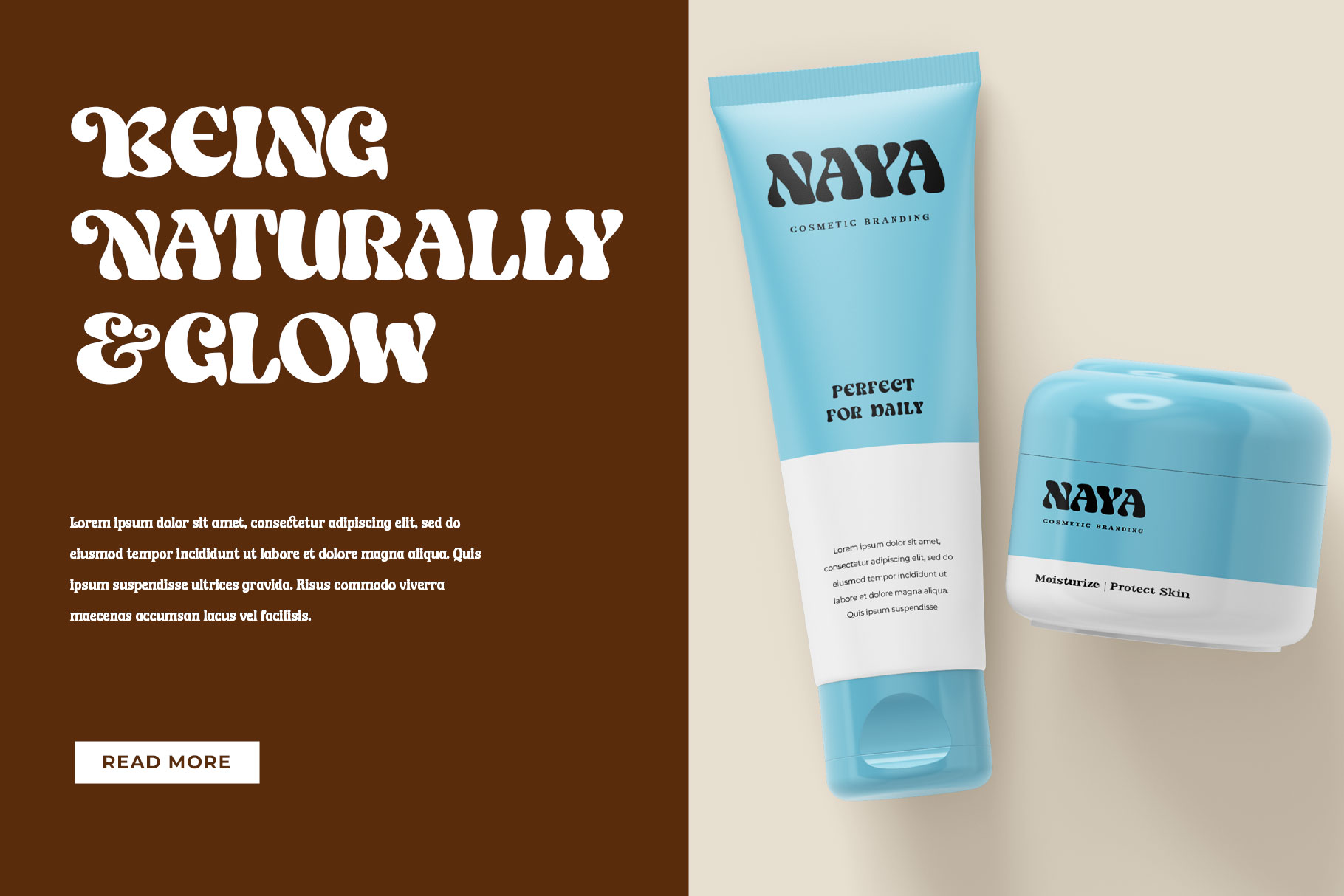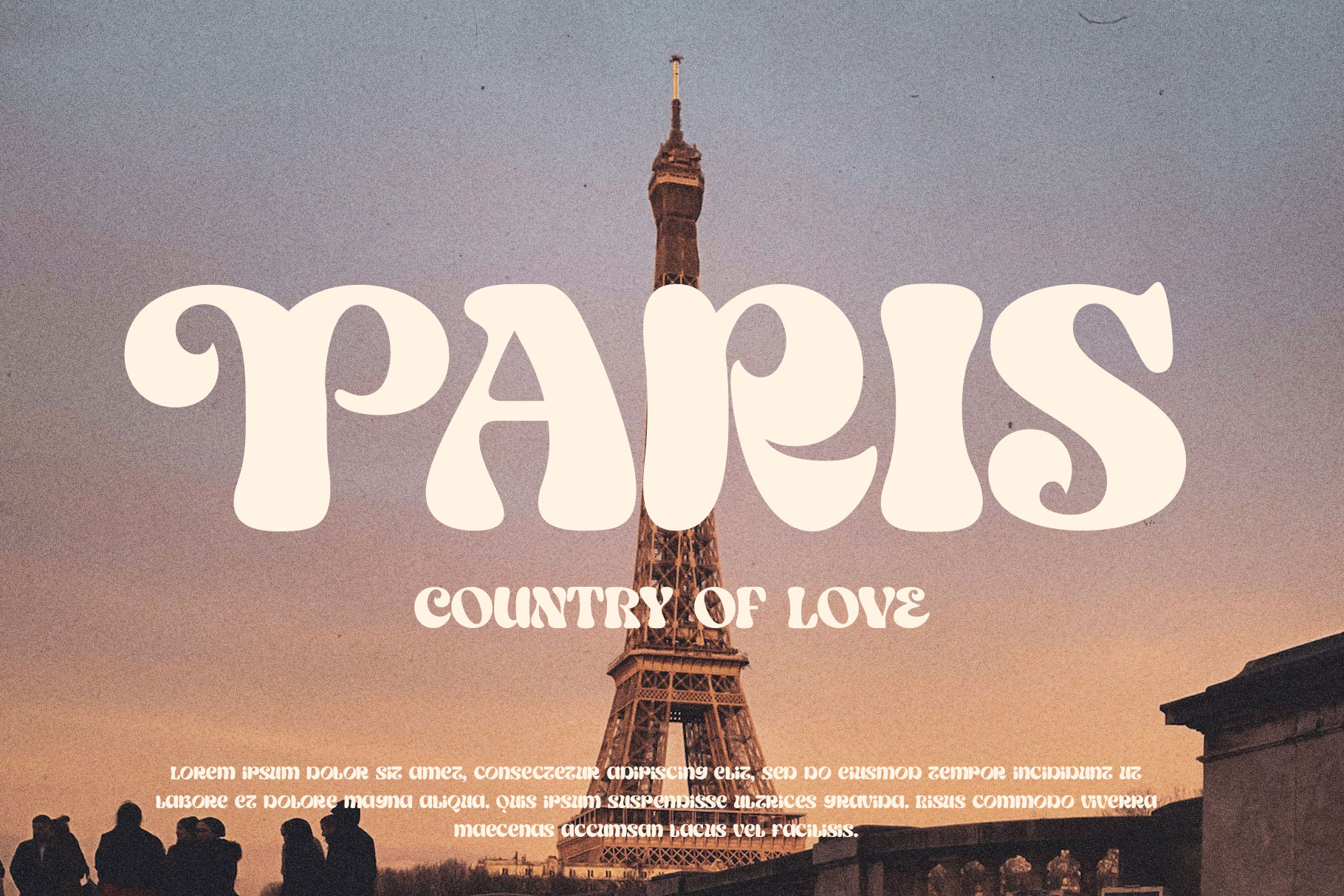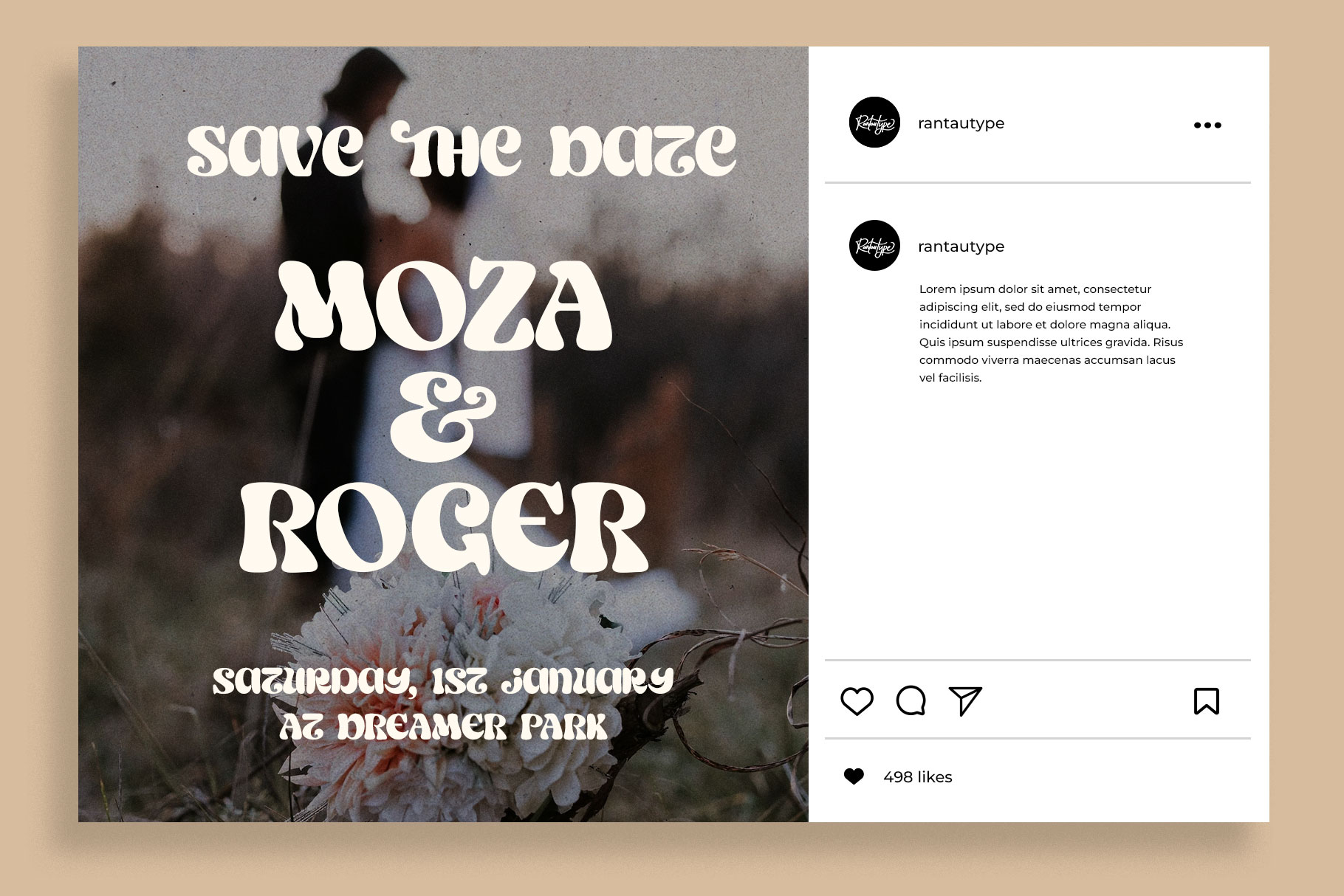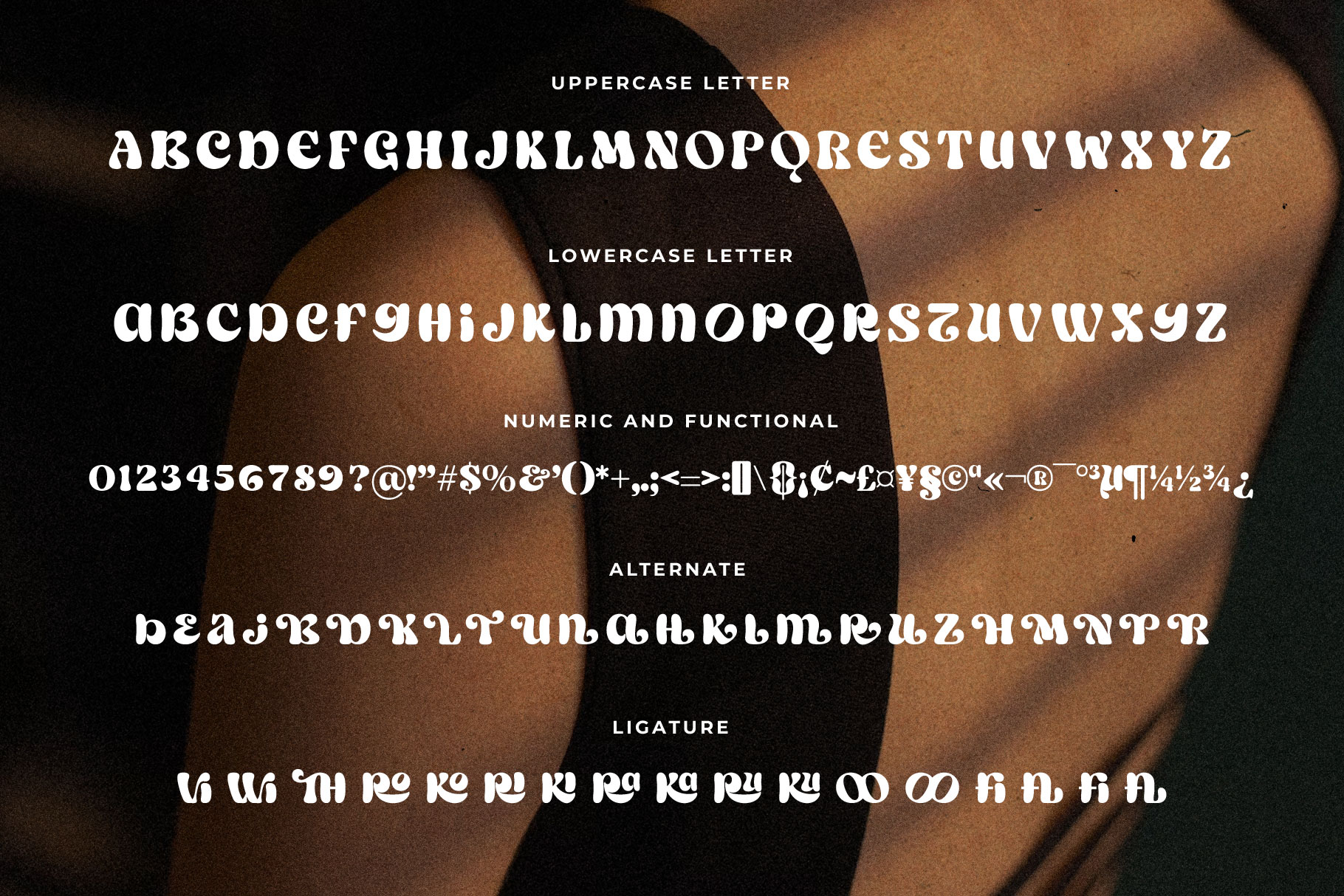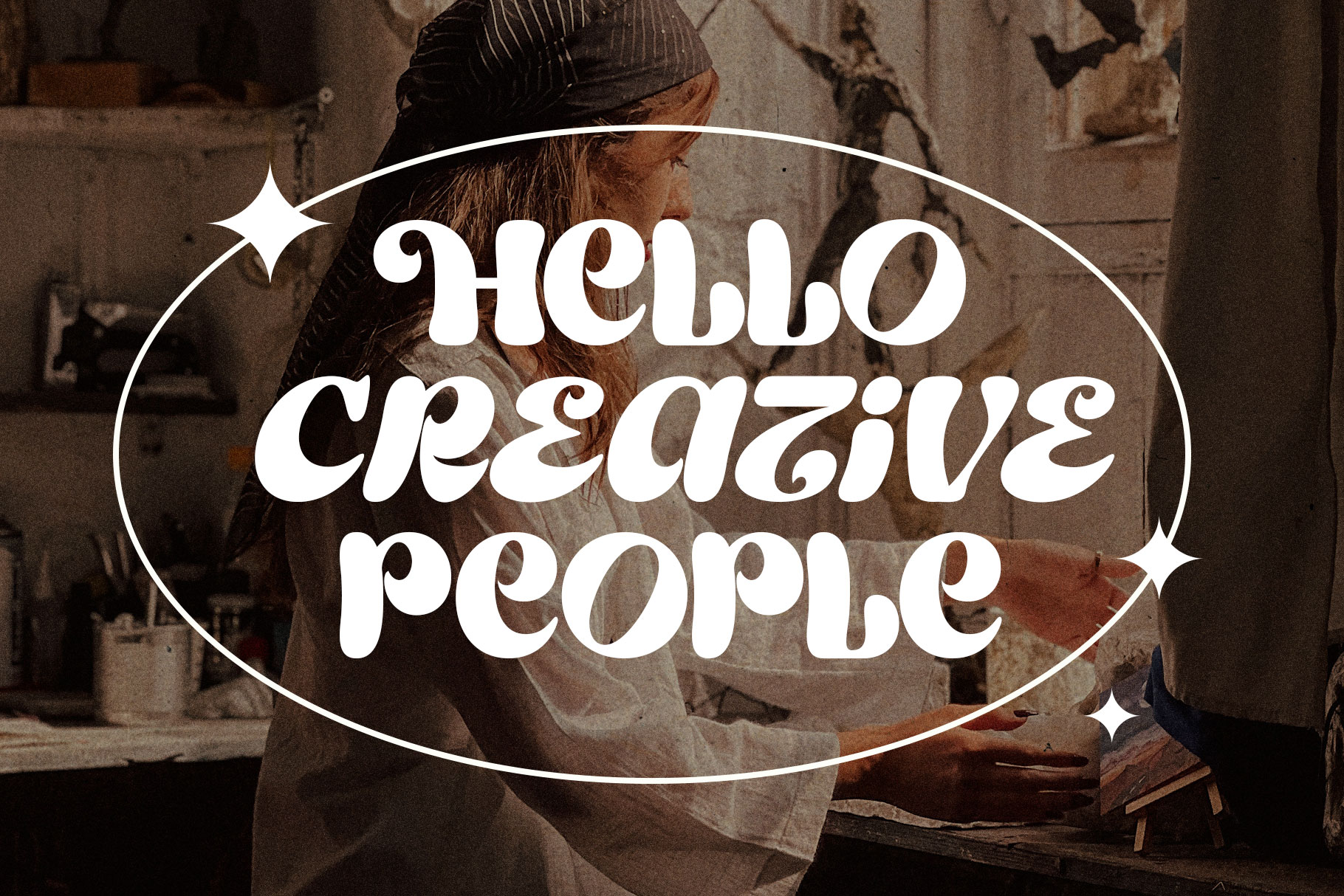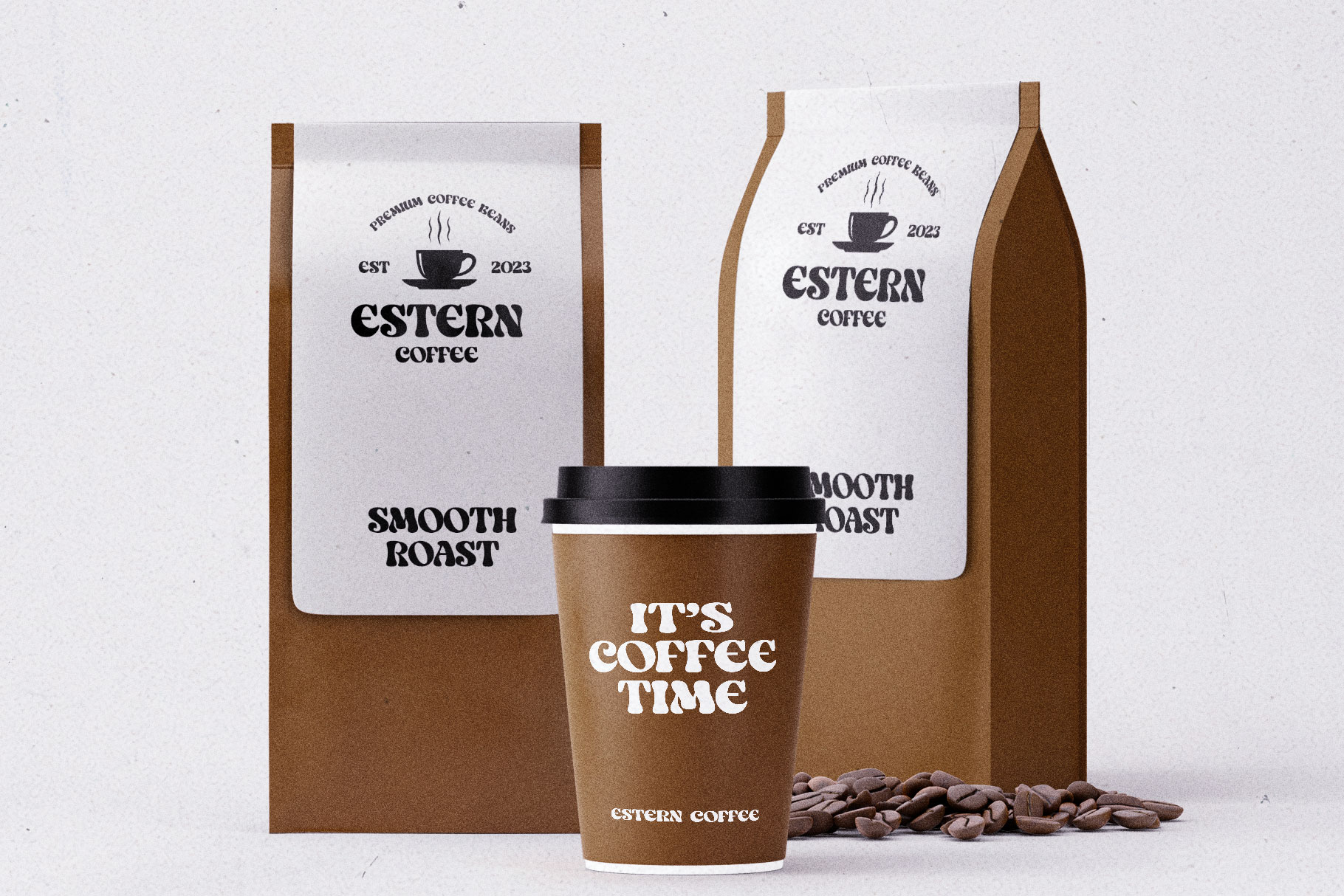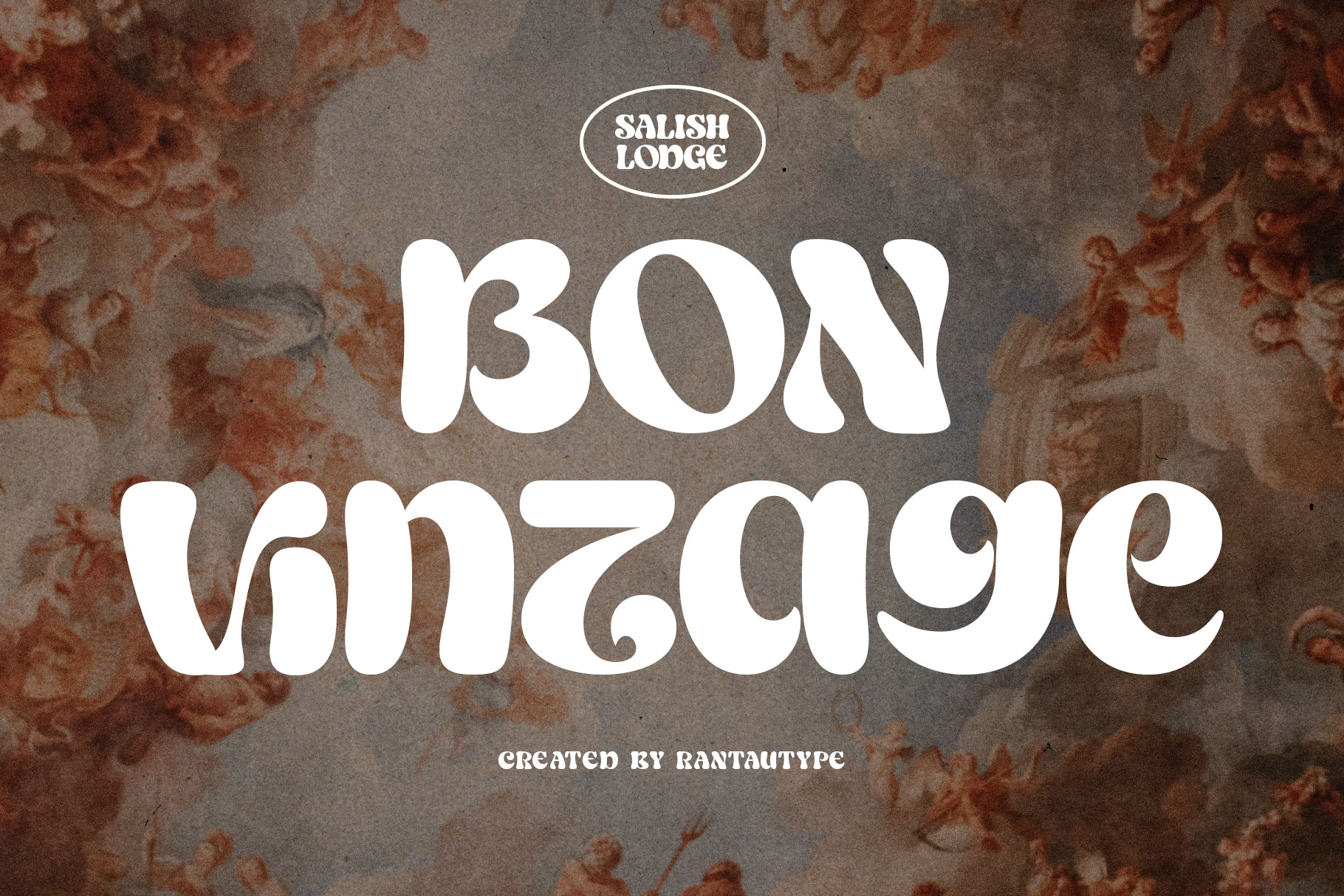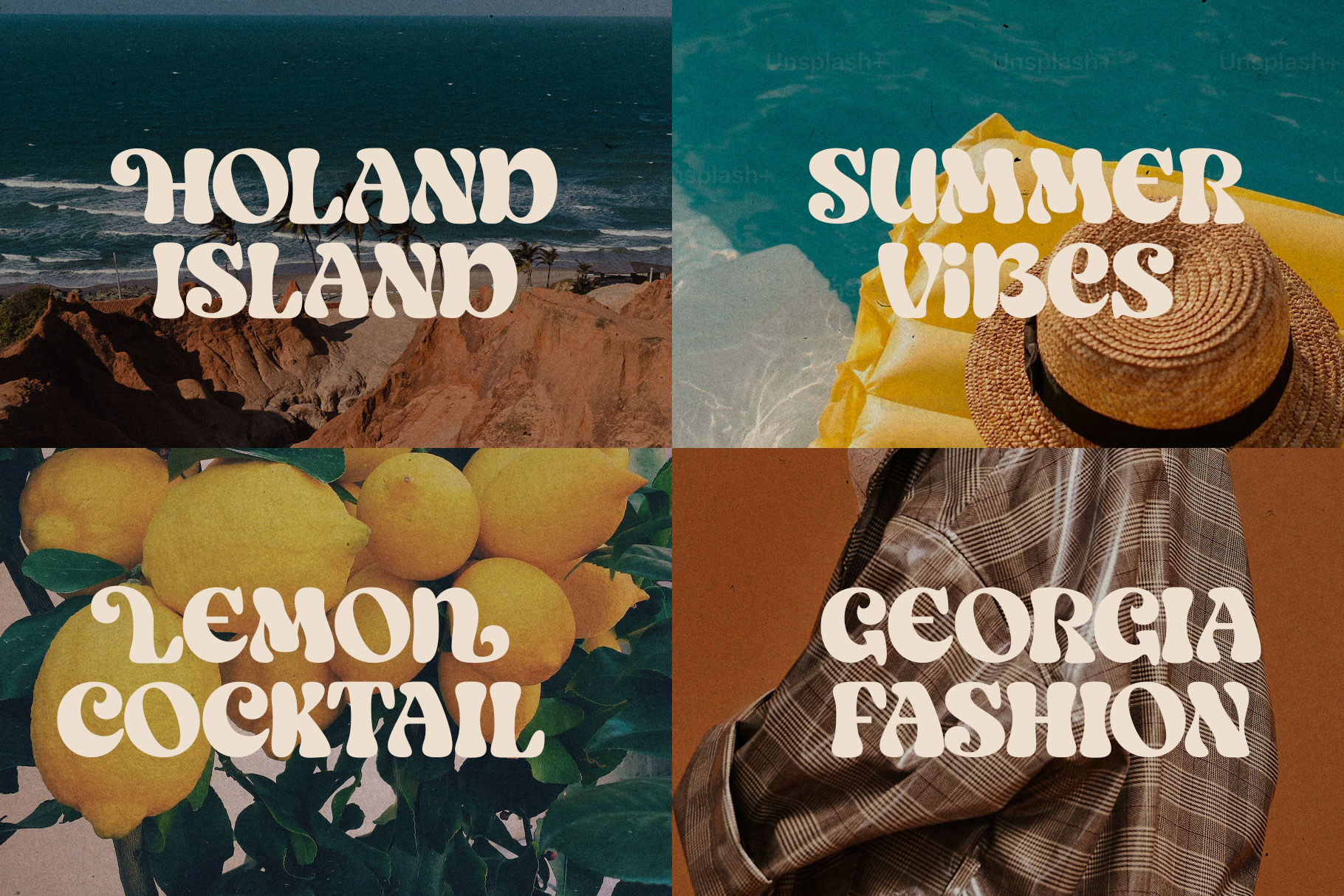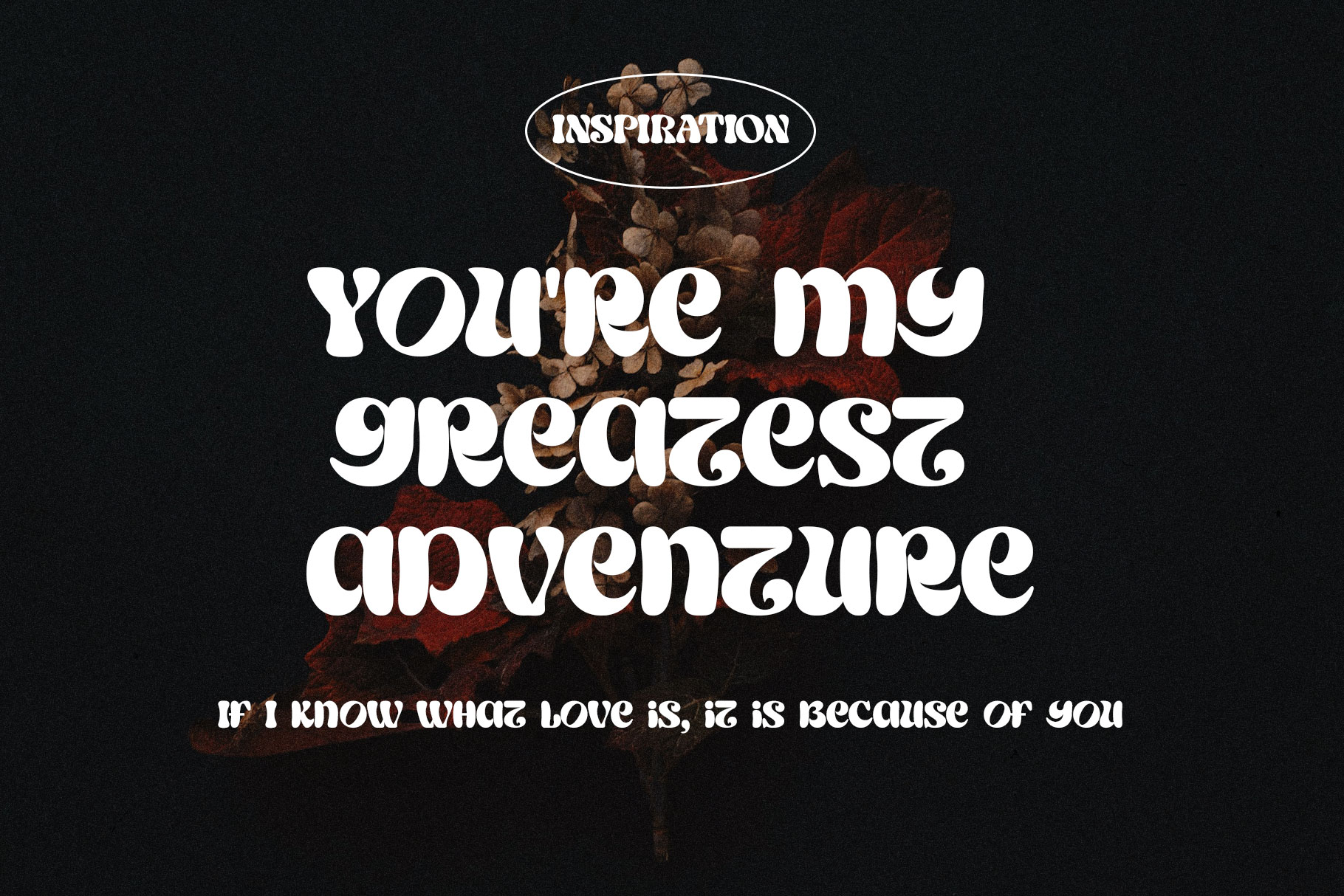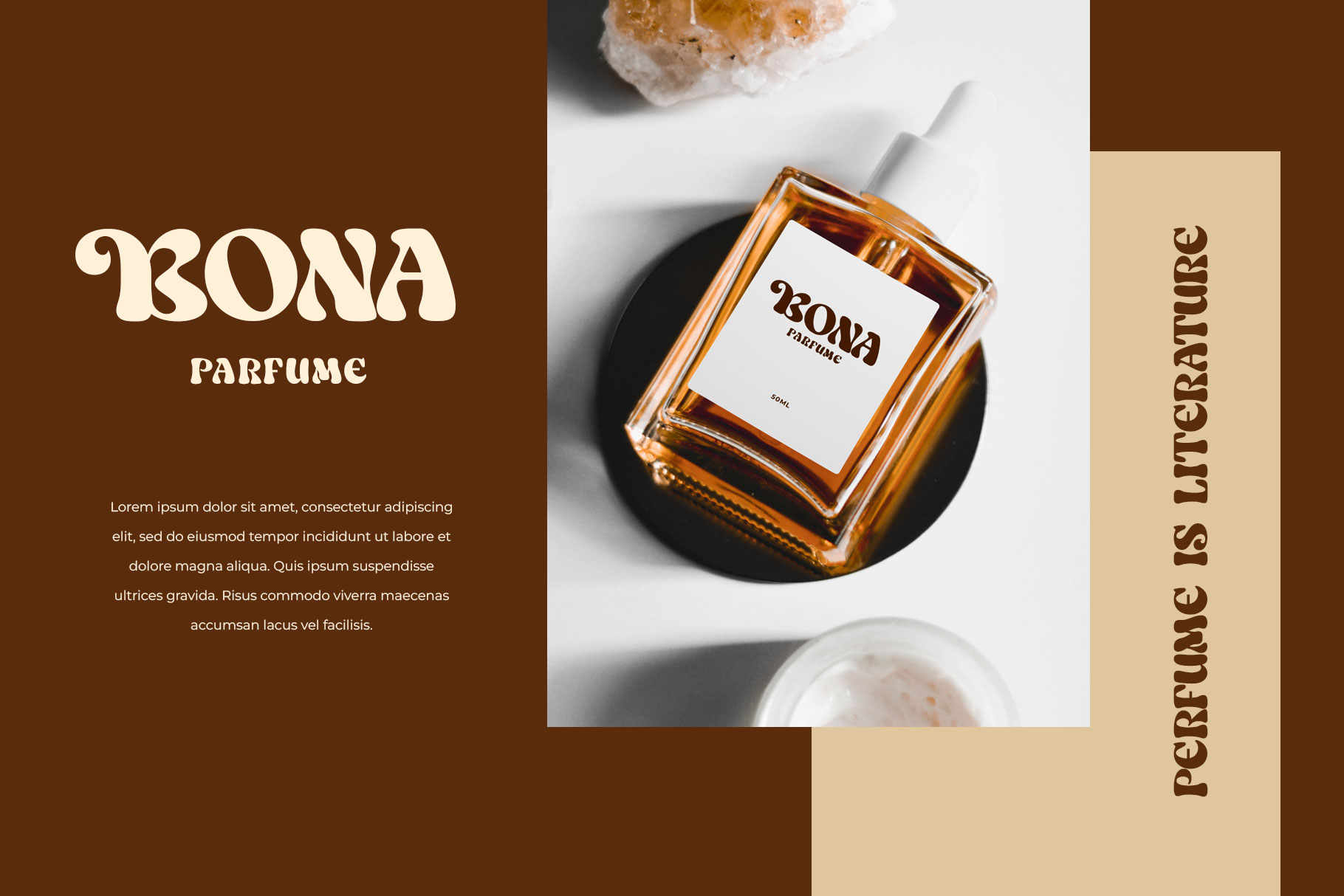
Salish Lodge is a display font that soft bold curve make it look Unique, fun, modern, and versatile serif Font. Come with more alternate and ligature you can mix to create a more stunning display. Salish Lodge come with multilingual accent support.
Salish Lodge separate in reguler and italic, is a beautiful choice for any creative endeavor, creating fun, modern, chic, lifestyle design such as logos, title, cover, branding, display and magazine, and more. Now you have can choice Salish Lodge to elevate you desaign or branding.